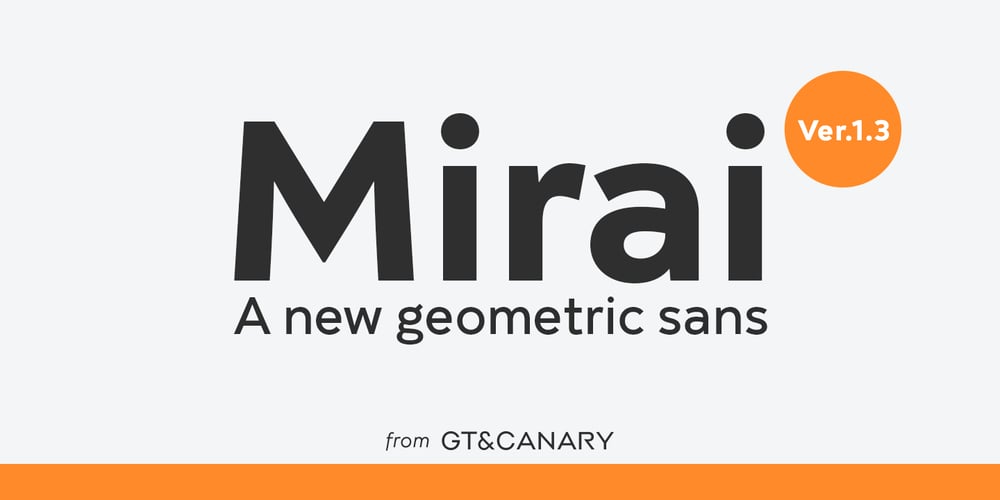
Mirai Font Family was designed by Takaaki Goto and published by GT&CANARY. Mirai contains 12 styles and family package options. Mirai, a new geometric sans font family, is clean, strong and composed yet effortlessly contemporary. Mirai is a Japanese word meaning “the future”. While inspired by iconic fonts throughout history, Mirai has its own unique character with a Zen-like neutral tone. Mirai’s geometric shapes, mono-line and especially its high X-height make it legible and easily recognizable. The Mirai font family is comprised of 12 styles with 6 different weights from Thin to black, along with matching italics. Each weight has been specifically designed to contrast with other weights offering countless possibilities for use in web, print, package and sign design.